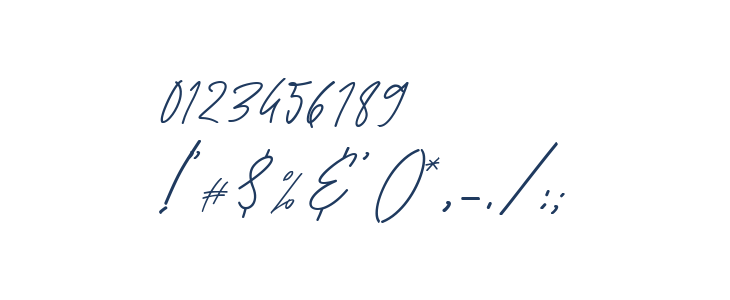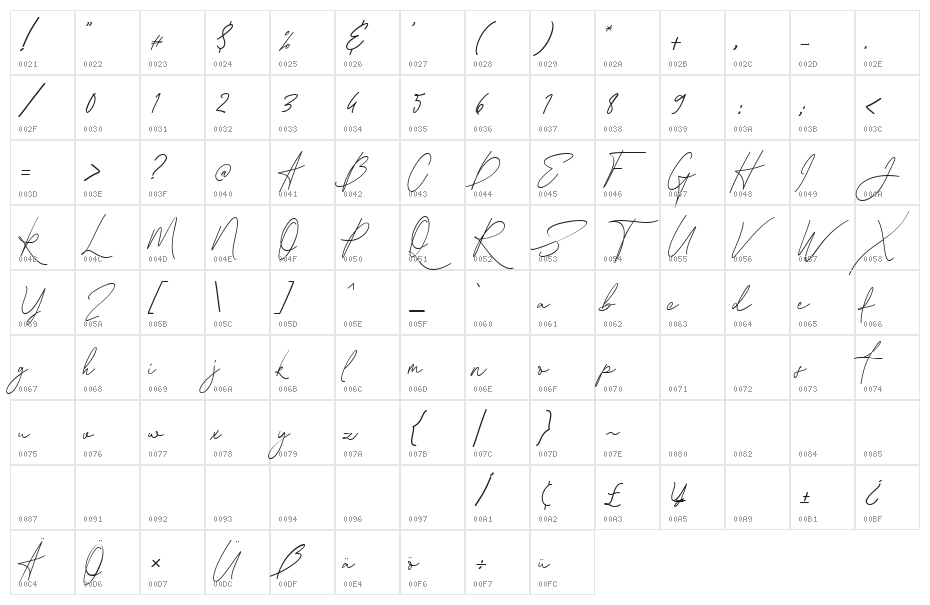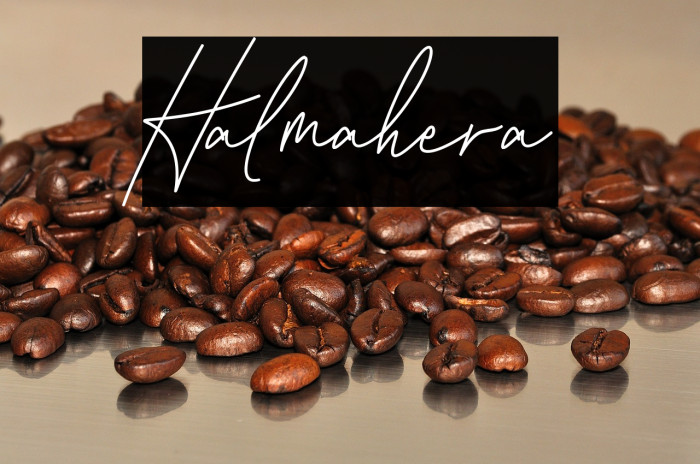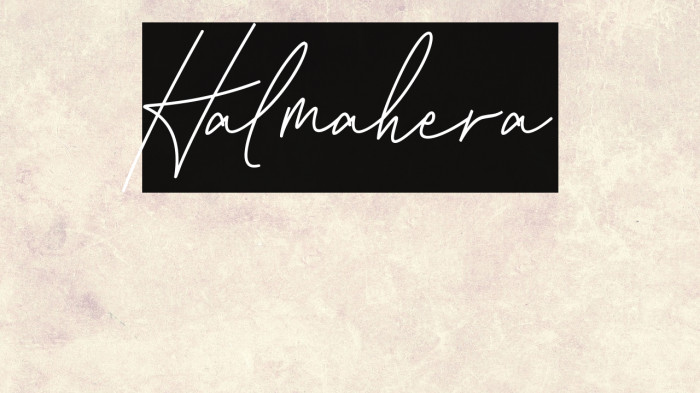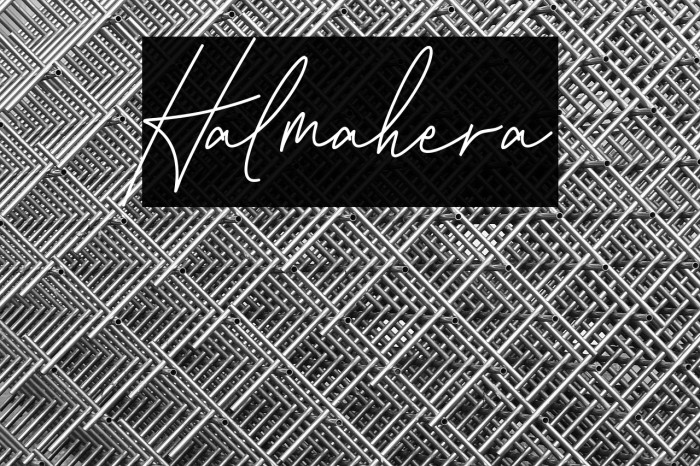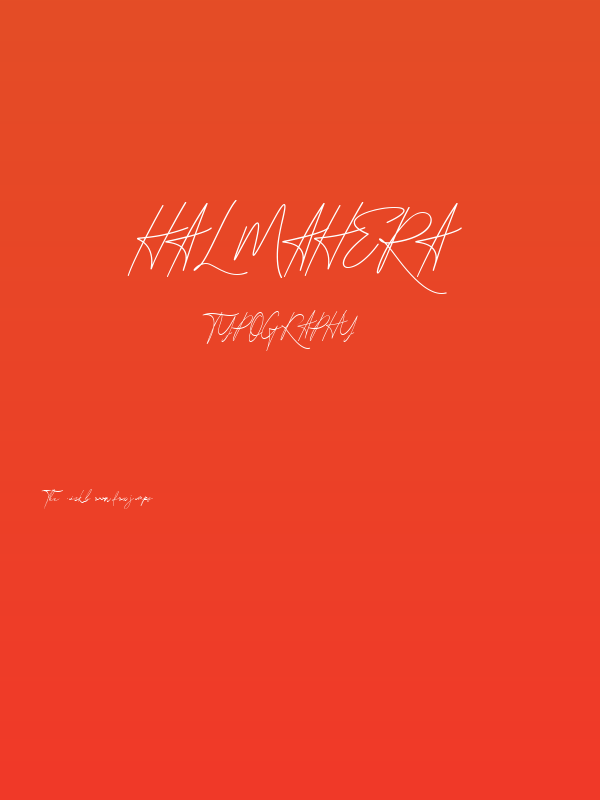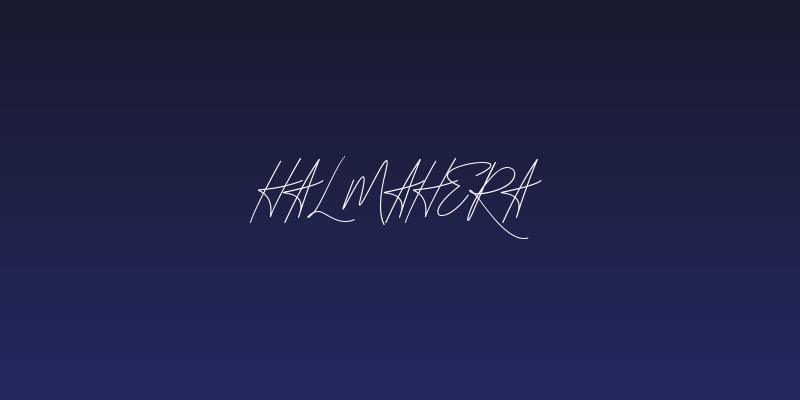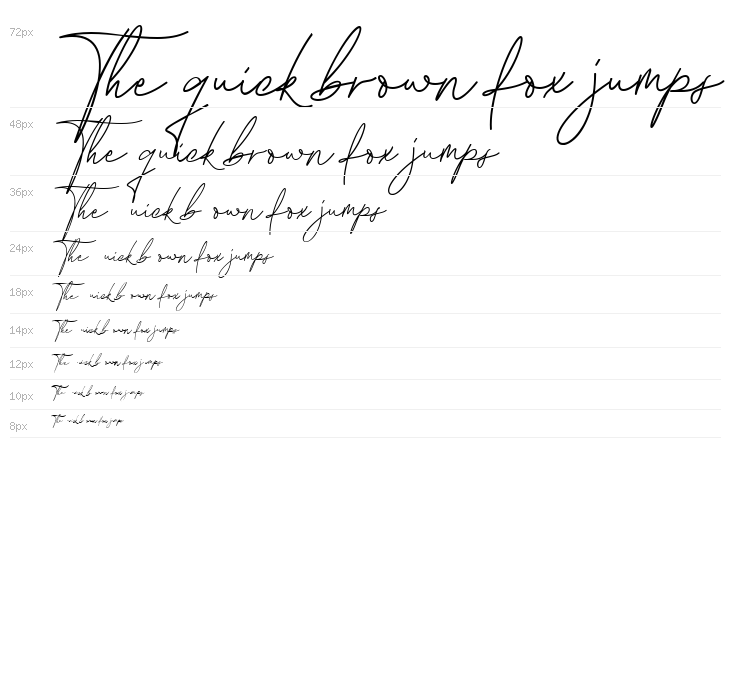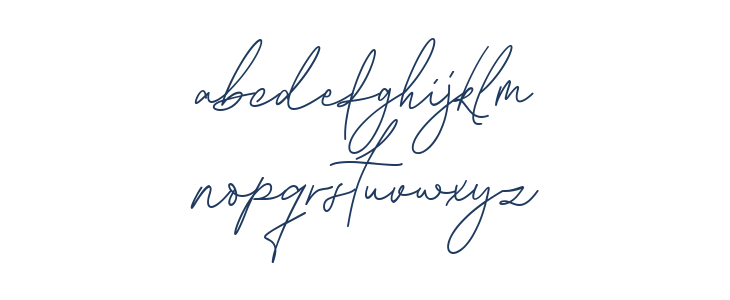
Halmahera Font
Halmahera Description
This font features a dynamic and flowing script style, characterized by its elegant and fluid strokes. The uppercase letters are tall and slender, with a slight slant that adds a sense of motion and grace. The lowercase letters maintain a consistent flow, with smooth connections between characters that enhance readability. The numerals are designed to match the overall style, offering a cohesive look. Special characters are crafted with the same attention to detail, ensuring they blend seamlessly with the rest of the font. This font exudes a sense of sophistication and creativity, making it ideal for projects that require a personal touch.
| Overall Style | Elegant |
| Use Case | Logos, Invitations, Personal branding |
| Proposed Projects | Ideal for wedding invitations, personal branding, elegant stationery, and artistic projects. |